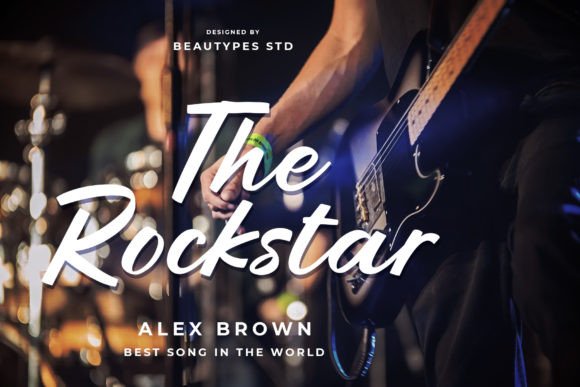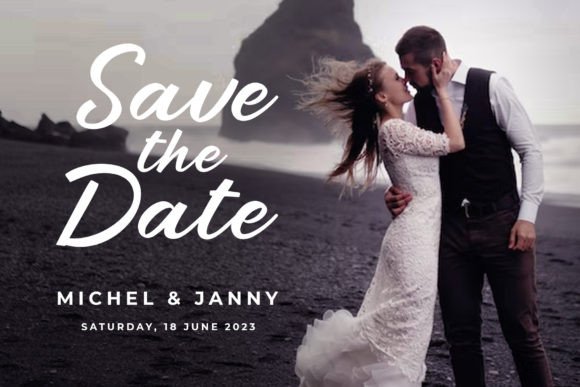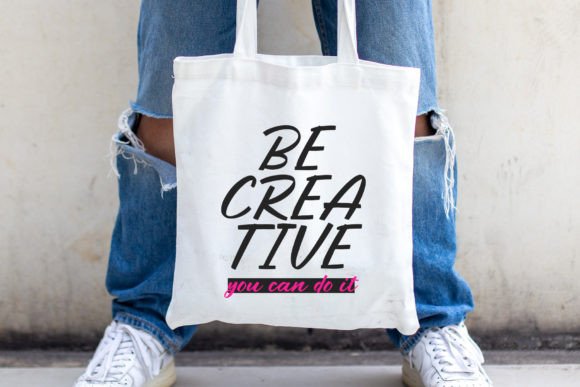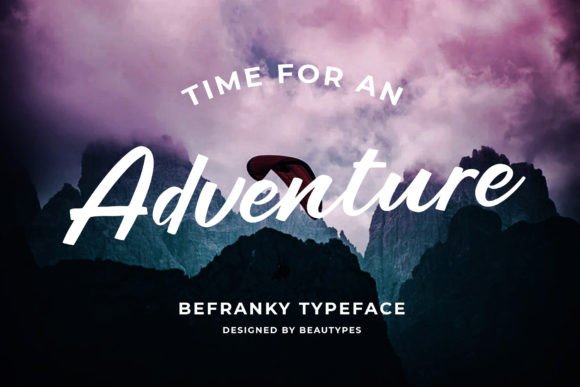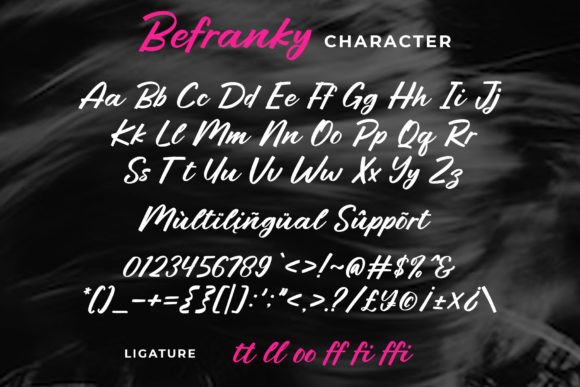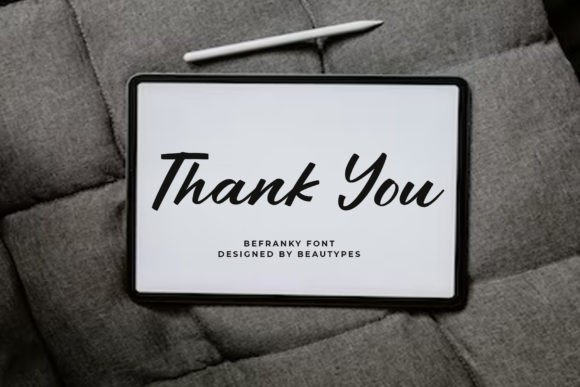
Handwritten Charm Meets Design
There’s something magical about scribbling down ideas in a notebook, watching words flow across the page in a dance of creativity. For designers, that spark of inspiration can be the catalyst for something truly special. And that’s exactly what we’ve captured with the Befranky Font, a beautiful handwritten brush script font designed to add a touch of personality to your projects.
Whether you’re crafting an invitation, designing a logo, or creating a social media post, the Befranky Font is the perfect addition to your toolkit. With its unique, handwritten feel, this font brings a sense of warmth and approachability to your designs, making it a valuable asset for any creative project. By incorporating the Befranky Font into your work, you’ll be able to add a touch of human connection to your designs, setting them apart from the rest.
- Unique Characteristics: Features a unique blend of modern and vintage elements, with a distinctive rounded edge and a clean, minimalist aesthetic.
First impressions are everything, and Befranky Font delivers. ✨ The font’s unique blend of modern and vintage elements is sure to grab attention. It’s perfect for projects that need a touch of sophistication and elegance. ✨ The font’s legibility is also top-notch, making it suitable for a wide range of applications, from headings to body text.
However, there are some limitations to consider. ⚠️ For one, Befranky Font may not be the best choice for projects that require a bold, eye-catching headline font. While it’s great for headings, it’s not as impactful as some other fonts in that category. ⚠️ Additionally, some users may find the font’s unique style to be too quirky or unconventional for their taste.
Overall, I’m impressed with Befranky Font, but it’s not a one-size-fits-all solution. If you’re looking for a font that’s a bit off the beaten path, Befranky is a great choice. But if you’re looking for something more traditional or bold, you may want to consider other options.
- Unique blend of modern and vintage elements
- Legible and suitable for a wide range of applications
- Perfect for projects that need a touch of sophistication and elegance
Getting the Most Out of Befranky Font
To get the most out of Befranky Font, try the following tips:
- Use it for headings and titles to add a touch of elegance.
- Experiment with different font sizes and colors to create contrast.
- Combine it with other fonts to create a unique and visually appealing design.
Befranky Font is commonly used for:
Alternatives to Befranky Font
Great Vibes Font is a modern, elegant script font. It is suitable for use in titles, headings, and other decorative text elements. When to use: Use for formal invitations, wedding cards, and other elegant designs.
Comparison: Great Vibes Font has a more refined and sophisticated look compared to Befranky Font. It is ideal for designs that require a touch of luxury and sophistication.
Carolyna Pro Font is a modern script font with a high-end feel. It is suitable for use in titles, headings, and other decorative text elements. When to use: Use for luxury brands, high-end fashion designs, and other premium products.